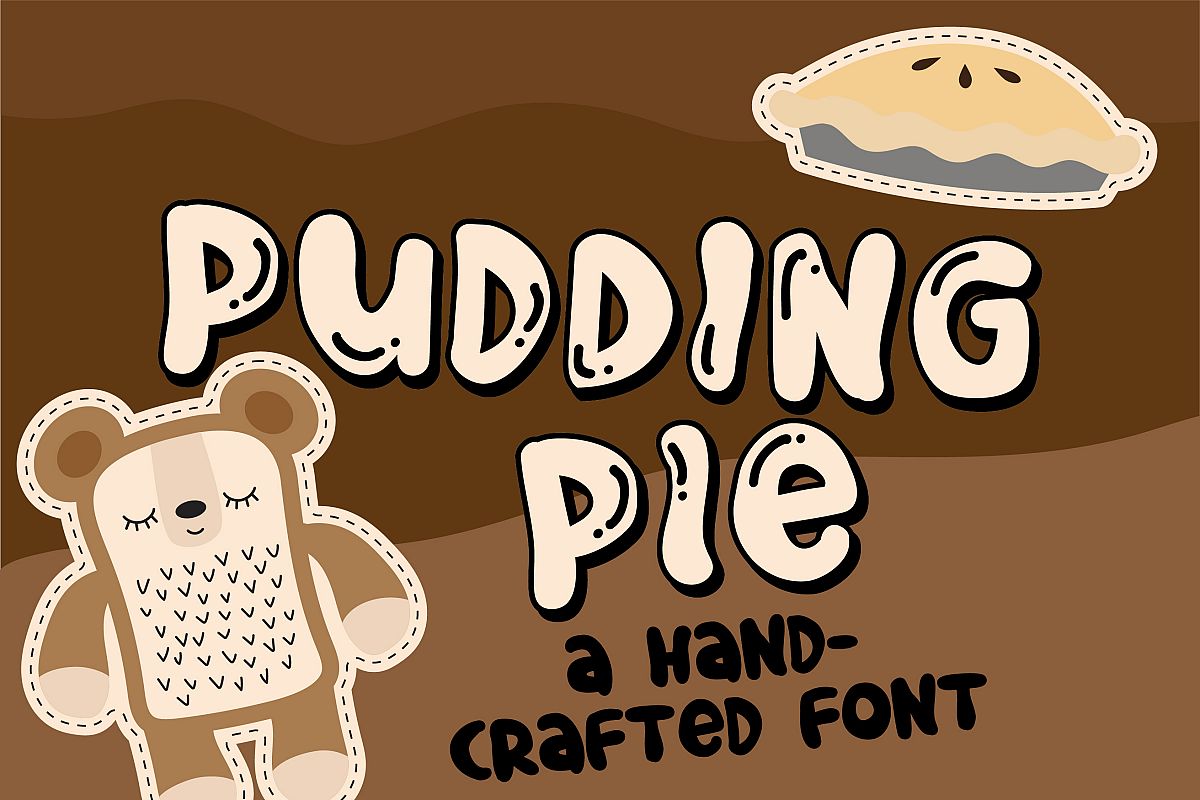
This whimsical hand-crafted font is great for titles, displays, posters and more. Two fonts are included...one solid and simple and an outline version with a bit of shadow and shine marks.